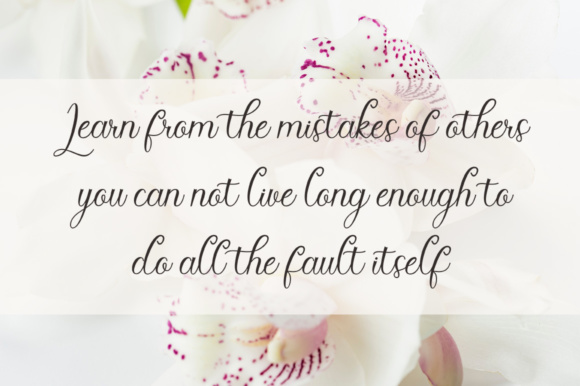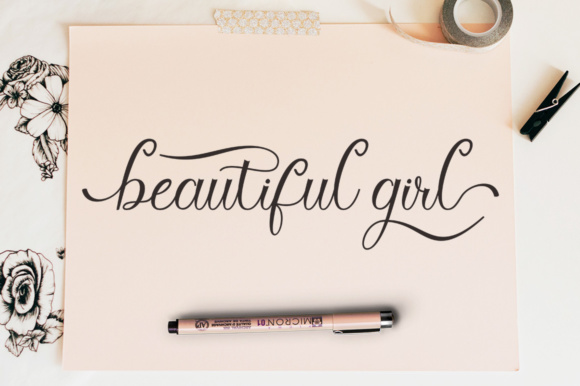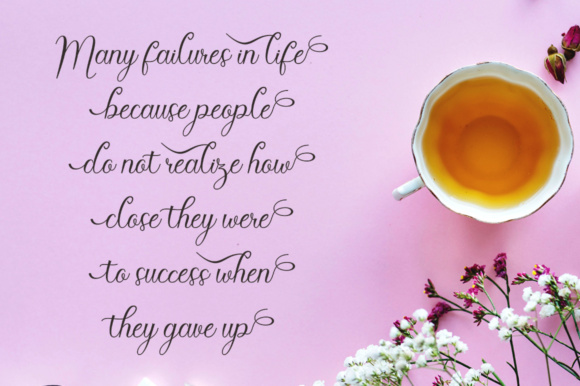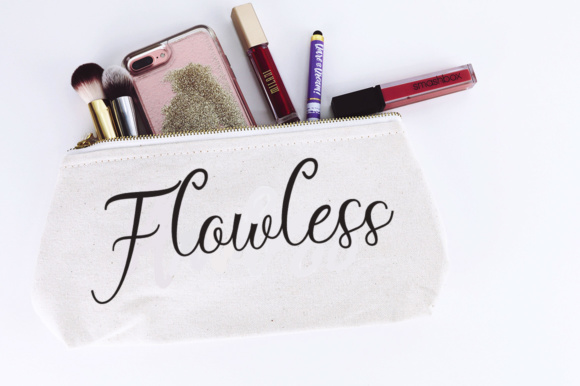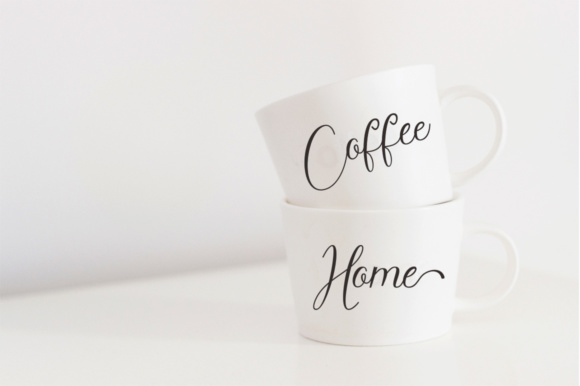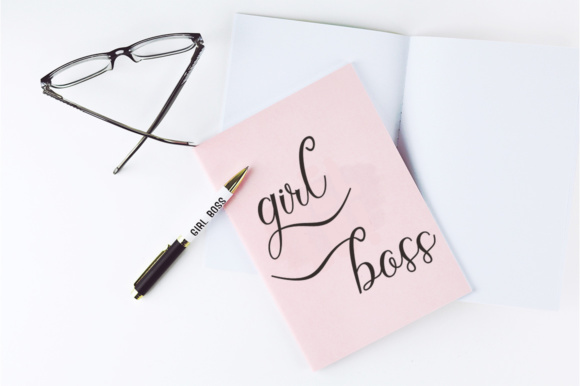
Cynthia Font: Elevate Your Designs with Modern Calligraphy
The Cynthia font is a stunning modern calligraphy script that has taken the design world by storm. Its unique blend of casual elegance and sophisticated flair makes it an ideal choice for a wide range of creative projects. In this article, we’ll dive into the world of Cynthia font, exploring its features, uses, and benefits for designers and crafters.
A Casual yet Elegant Look
The Cynthia font boasts a beautiful, flowing script that exudes a sense of effortless elegance. Its casual yet refined appearance makes it perfect for designs that require a touch of sophistication without being too formal. Whether you’re creating a logo, invitation, or branding materials, Cynthia font is sure to make a lasting impression.
Pretty Swashes for Added Flair
One of the standout features of the Cynthia font is its gorgeous swashes. These decorative flourishes add a touch of whimsy and personality to any design, making it truly unique and eye-catching. With Cynthia font, you can add a dash of elegance and refinement to your projects, setting them apart from the rest.
The Cynthia font is incredibly versatile, making it suitable for a wide range of creative projects. Here are just a few ideas to get you started:
- Logos: Create a stunning logo for your business or brand with Cynthia font. Its elegant script and swashes make it perfect for companies that want to convey a sense of sophistication and refinement.
- Invitations: Make your invitations truly special with Cynthia font. Whether you’re planning a wedding, birthday party, or other celebration, this font is sure to impress your guests.
- Branding: Use Cynthia font to create a cohesive brand identity that reflects your values and personality. From business cards to packaging, this font is sure to make a lasting impression.
- Headlines: Add a touch of elegance to your headlines with Cynthia font. Its beautiful script and swashes make it perfect for titles, headings, and other text elements.
The Cynthia font offers a range of benefits for designers and crafters, including:
- Customization: With Cynthia font, you can customize your designs to suit your needs. Experiment with different colors, sizes, and styles to create a truly unique look.
- Time-saving: The Cynthia font is a huge time-saver for designers and crafters. No need to spend hours creating custom lettering or illustrations – simply use this beautiful font to get the job done.
- High-quality: The Cynthia font is of exceptionally high quality, ensuring that your designs look professional and polished.
Tips for Using Cynthia Font
To get the most out of the Cynthia font, here are a few tips to keep in mind:
- Experiment with sizes: Cynthia font looks great in a variety of sizes, from large headings to smaller text elements. Experiment with different sizes to find the perfect fit for your design.
- Play with colors: The Cynthia font comes in a range of colors, but you can also experiment with different colors to suit your design. Try pairing it with bold colors or subtle pastels for a unique look.
- Add embellishments: To take your design to the next level, try adding embellishments like glitter, textures, or other effects. This will help your design stand out and add an extra touch of personality.
| Author | rotterlabstudio |